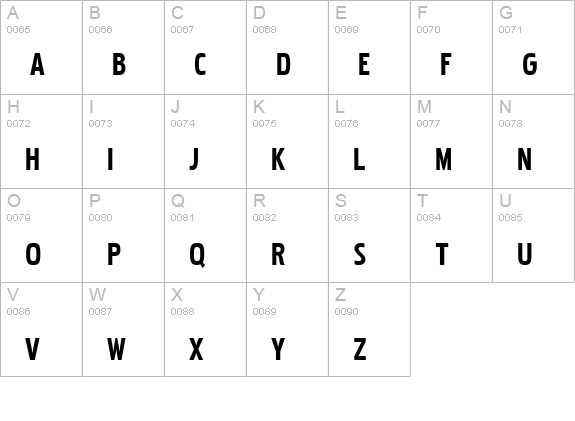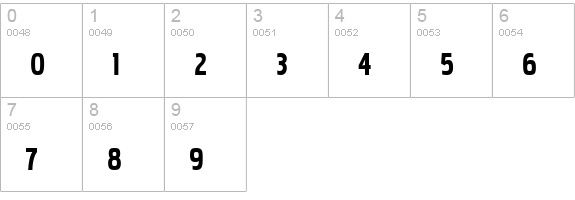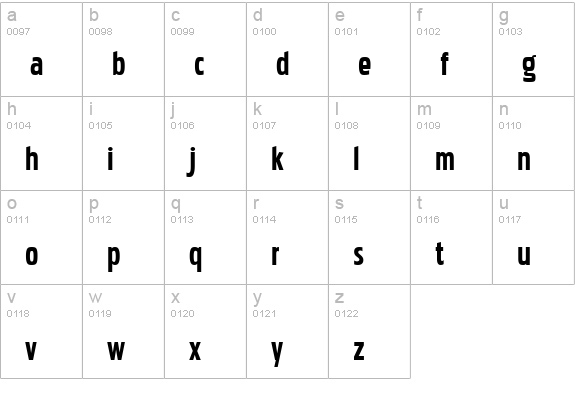
Pakenham Cnd Bold Font Details
Pakenham Cnd Bold is a strong, high-contrast variant in the Pakenham typeface family \xE2\x80\x94 well suited to headlines, attention-grabbing titles, and strong calls-to-action.
Pakenham Cnd Bold is a modern and versatile font that exudes confidence and sophistication. Its bold and elegant letterforms make it ideal for creating impactful headlines, titles, and branding materials. This font strikes the perfect balance between professionalism and creativity, making it suitable for a wide range of design projects. What sets Pakenham Cnd Bold apart is not just its sleek design, but also the fact that it is available for free download at FontsMarket.com. This means that you can easily access this high-quality font without having to worry about any costs. Whether you are a designer looking to elevate your projects or a business owner in need of a standout font for your marketing materials, Pakenham Cnd Bold is a fantastic choice that won't break the bank. Experience the power and versatility of Pakenham Cnd Bold today by downloading it for free at FontsMarket.com. Elevate your designs with this sophisticated font and make a lasting impression on your audience.